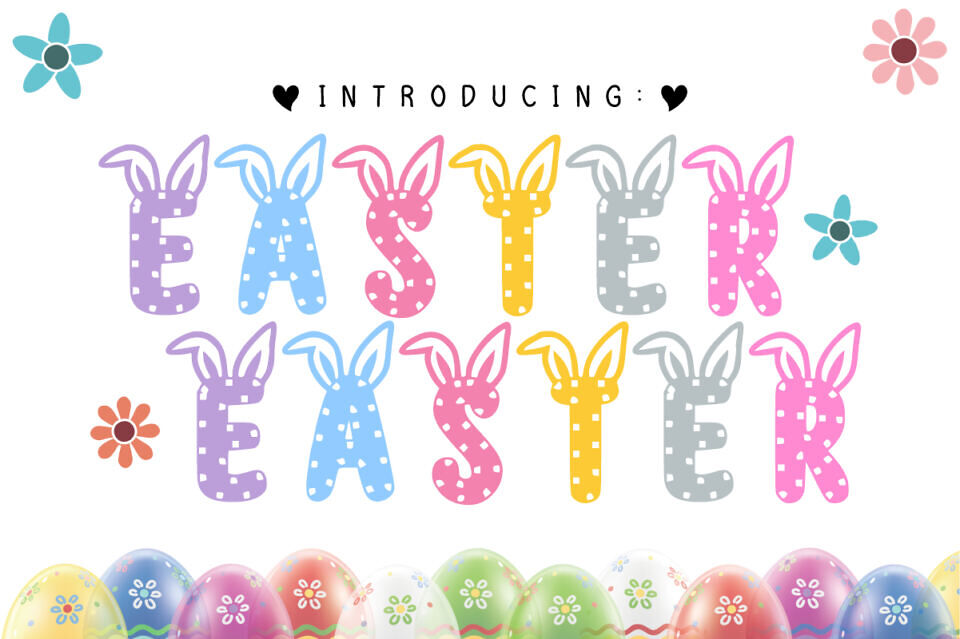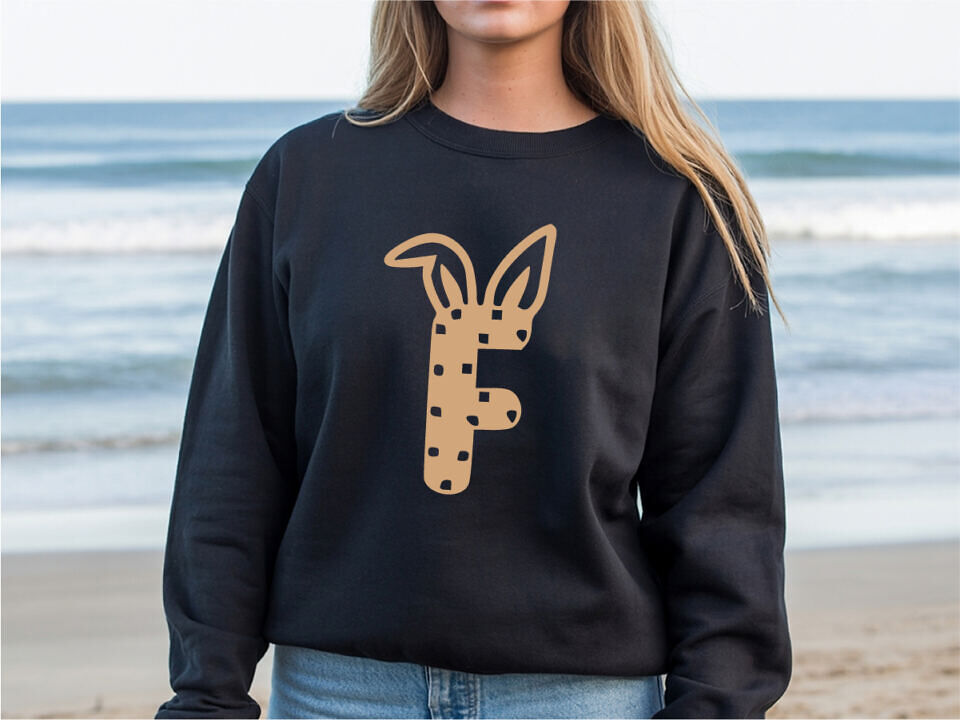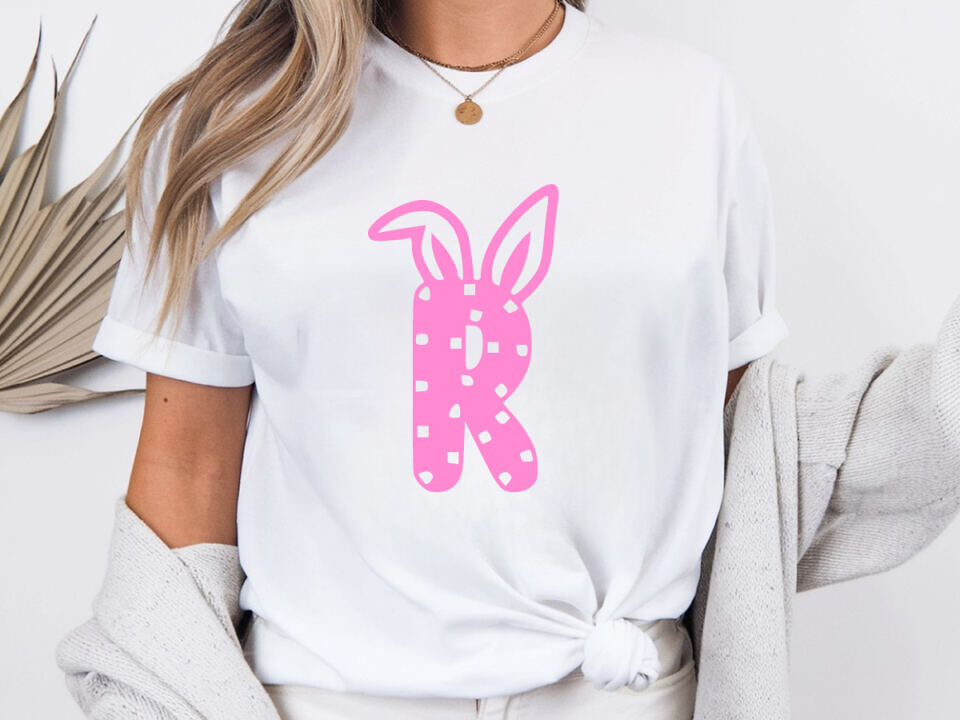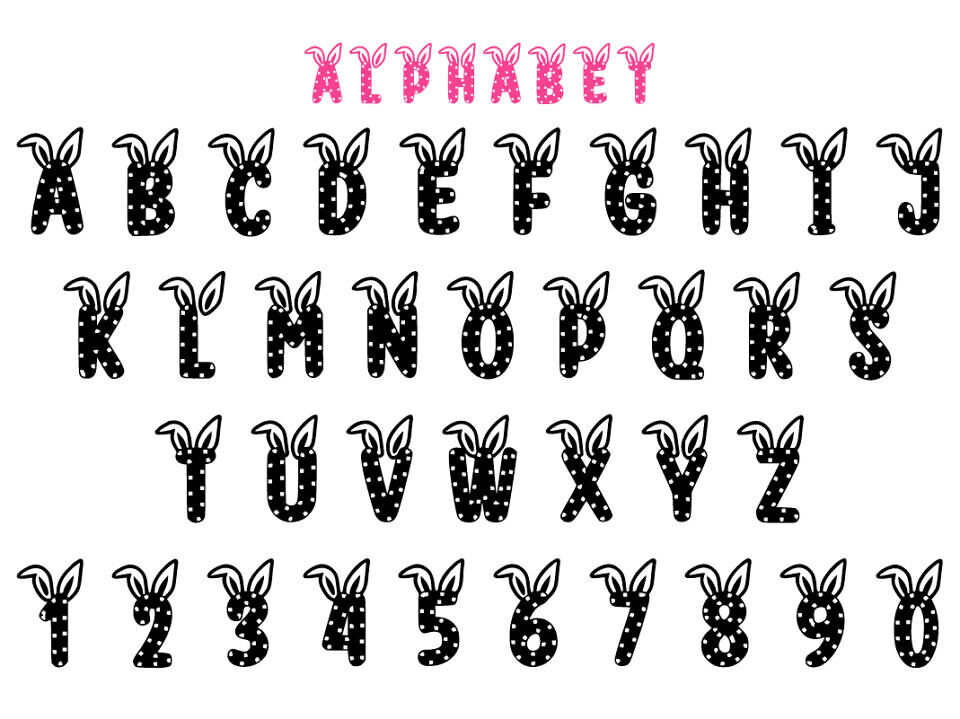
Introducing a delightful font perfect for spring projects. This charming font features bunny ears, a whimsical silhouette, and playful polka dots. It’s ideal for adding a touch of fun to Easter-themed designs, such as cards, nursery decor, and festive branding.
The font includes uppercase letters, numbers, and simple punctuation, making it suitable for various creative projects, including invitations, social media graphics, and children’s books.